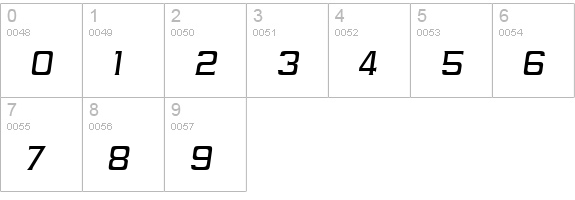
Vibrocentric Italic Font Details
Vibrocentric Italic is a distinctive, italic variant in the Vibrocentric typeface family \xE2\x80\x94 well suited to design and typography projects.
Introducing Vibrocentric Italic, a captivating and dynamic font that effortlessly merges sleek modernity with timeless elegance. Its unique design exudes a sense of energy and movement, making it the perfect choice for projects that demand a touch of vibrancy and excitement. Vibrocentric Italic boasts a fluidity in its letterforms that is both captivating and visually striking. With its slanted and italicized style, this font lends an air of sophistication and creativity to any design. Each character is meticulously crafted, with graceful strokes and subtle curves, resulting in a harmonious and balanced overall appearance. This font is not only visually appealing but also highly versatile. Its versatility shines through in various design applications, including branding, advertising, editorial design, and much more. Whether you are looking to create eye-catching headlines, elegant logos, or captivating typography, Vibrocentric Italic is the perfect choice to make your design truly stand out. One of the most remarkable aspects of Vibrocentric Italic is that it is freely available to download at FontsMarket.com. This means that you can effortlessly add this stunning font to your collection without any hassle or cost. Whether you are a professional designer or a creative enthusiast, the accessibility of this font ensures that you can explore its endless possibilities and unleash your creativity to the fullest. Embrace the captivating charm and artistic allure of Vibrocentric Italic, and elevate your designs to the next level. Download this font today from FontsMarket.com and discover the limitless potential it holds for your creative endeavors.